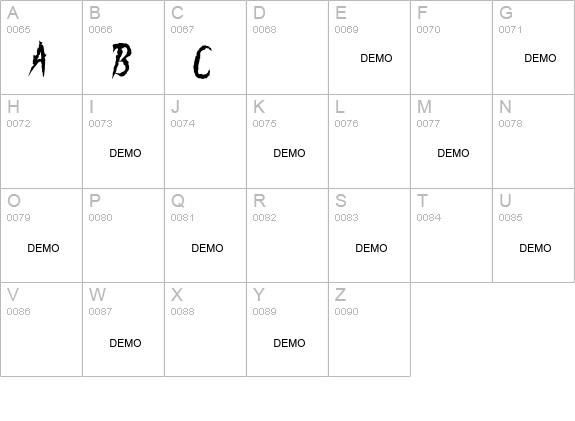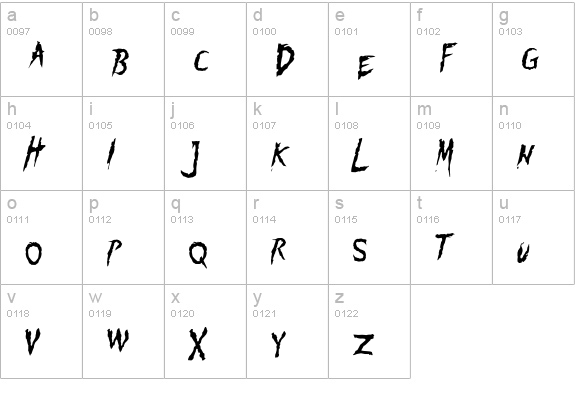
Pumpkinhead DEMO Font Details
Pumpkinhead DEMO font is a whimsical and playful typeface that is perfect for adding a touch of spookiness to your designs. With its bold and quirky style, this font is sure to make a statement. Whether you're creating Halloween-themed graphics, party invitations, or any other project that needs a fun and festive font, Pumpkinhead DEMO is the perfect choice. Best of all, Pumpkinhead DEMO font is available for free download at FontsMarket.com. This means you can easily add this eye-catching font to your collection without breaking the bank. So why wait? Download Pumpkinhead DEMO font today and let your creativity run wild with this delightful and charming typeface.